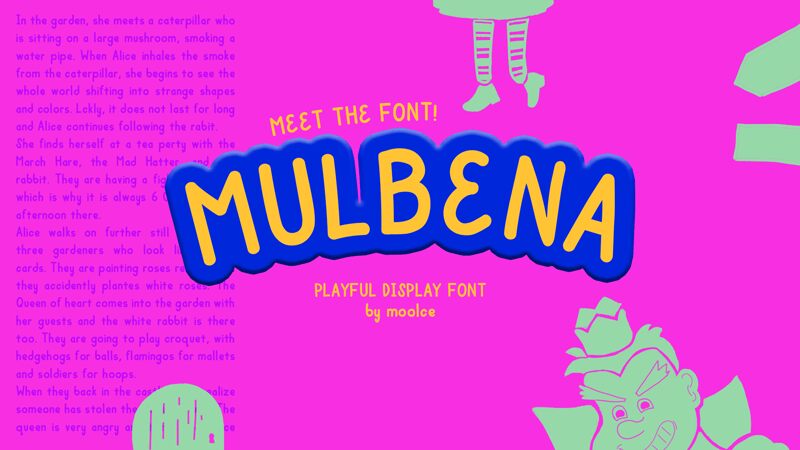
Mulbena font is a playful display typeface designed by Michelle Janety.
this font made based on my own handwritting
the full version based on designer's hand writting